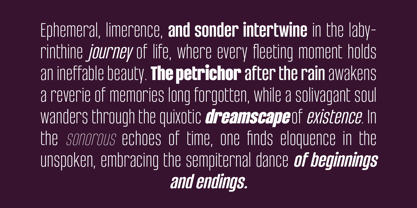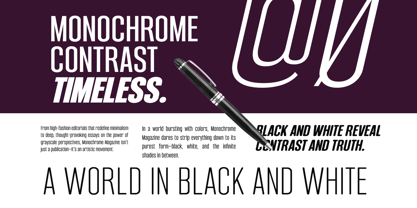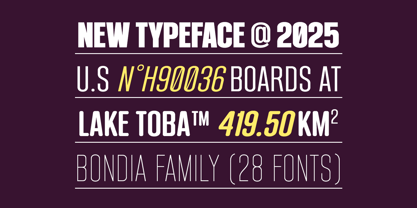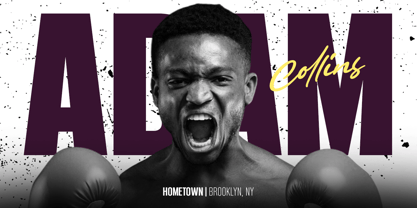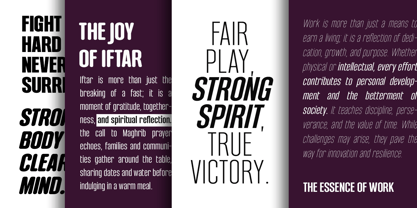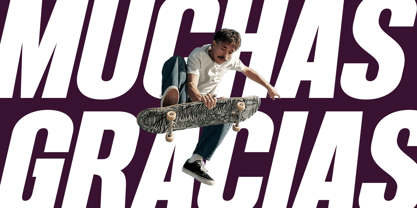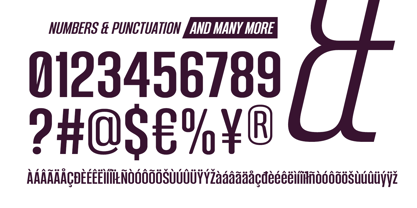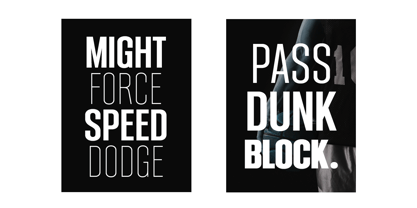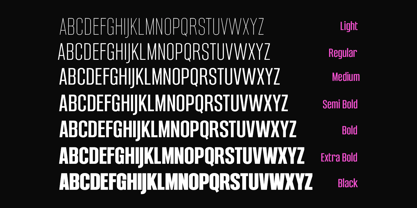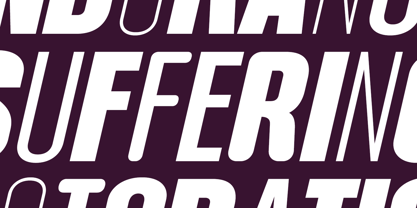
Bondia
by Arterfak Project
The Bondia Font Family was designed by Ahmad Ramzi Fahruddin and published by Arterfak Project. Bondia contains 28 styles and family package options. More about this family
Bondia is a versatile condensed sans serif that merges elegance, strength, and modern appeal. Designed for both impact and readability, it comes in 7 weights and 4 styles, offering flexibility for various design needs. Its sleek, narrow structure delivers a sporty and futuristic look, making it a go-to choice for bold and stylish visuals.
The lighter to semibold weights ensure clean, readable body text and subtext, while the bolder weights bring powerful presence to headlines and statement pieces. Whether you’re crafting branding, posters, editorial layouts, product packaging, or striking digital content, Bondia adds a sharp, contemporary edge to any project.
Designers: Ahmad Ramzi Fahruddin
Foundry: Arterfak Project